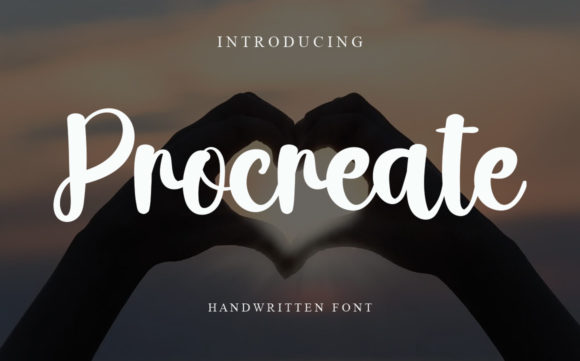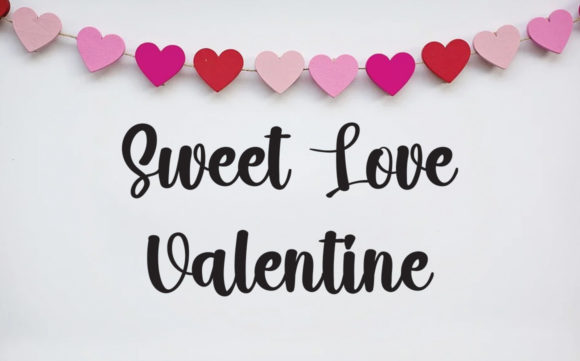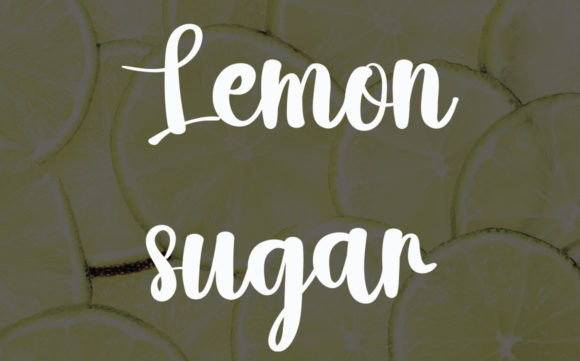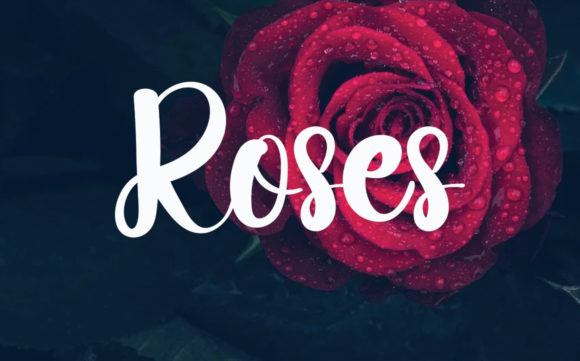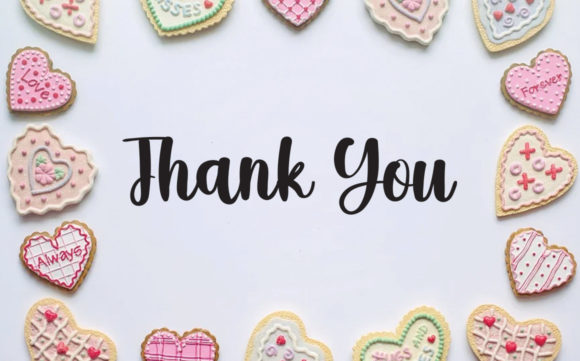
About Procreate Font
Procreate is a sweet and romantic handwritten font featuring a delicate flow. Use it for wall displays, wedding invitations, social media post logos, and any project that requires impressive typography.